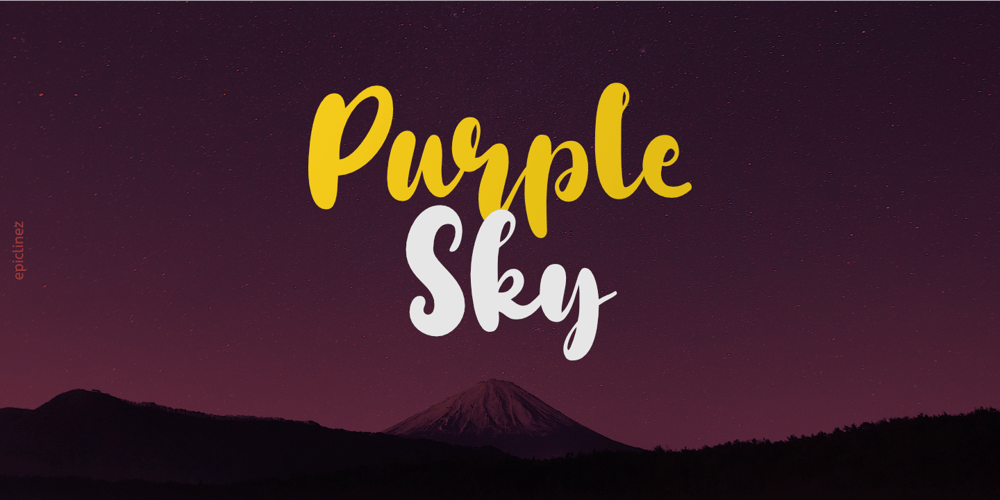
Purple Sky Font Family was designed by Aldy Sidik and published by Epiclinez. Purple Sky contains 1 styles and family package options. Purple Sky is a bold and stylish handwritten script font. It is suitable for logos, branding, apparel, social media, and much more. The font Purple Sky contains 198 glyphs. Supporting more than 66 languages, from English to Zulu. It is also PUA encoded, multilingual, and has open-type features such as ligatures.Add a unique touch to your designs with this fantastic typeface.